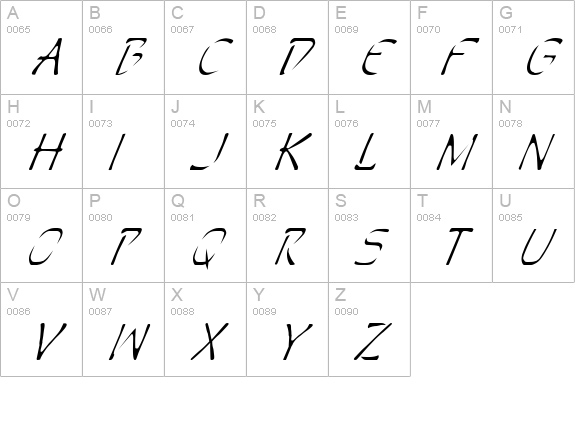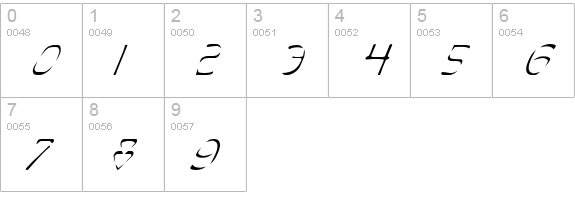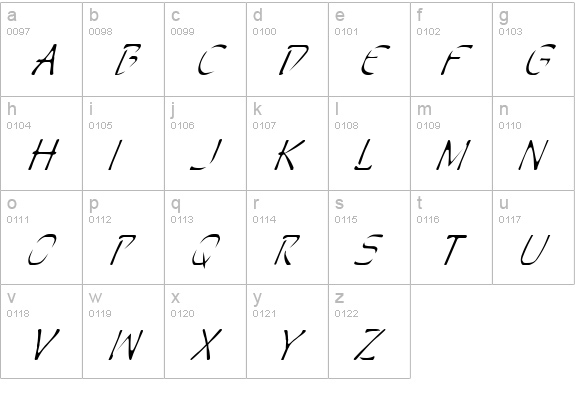
Perdition Italic is a distinctive, italic variant in the Perdition typeface family \xE2\x80\x94 well suited to design and typography projects.
Perdition Italic font embodies a captivating blend of elegance and edginess, making it the perfect choice for those seeking to add a touch of sophistication to their designs. With its sleek and slanted letterforms, this font exudes a sense of intrigue and allure, drawing the viewer's attention with its unique style. The distinctively crafted characters of Perdition Italic font strike a harmonious balance between boldness and grace, making it an ideal choice for a wide range of design projects. Whether you're looking to create eye-catching logos, stylish headlines, or captivating body text, this font is sure to leave a lasting impression. What sets Perdition Italic font apart is not only its exceptional design, but also its accessibility. As a font that is freely available to download at FontsMarket.com, it offers designers and creatives the opportunity to enhance their projects without any financial constraints. This means that you can unleash your creativity and fully embrace the possibilities that Perdition Italic font has to offer, without worrying about breaking the bank. With its versatility and accessibility, Perdition Italic font is a valuable addition to any designer's toolkit. Whether you're working on a personal project or a professional endeavor, this font is sure to elevate your designs and bring them to the next level. So why wait? Download Perdition Italic font today from FontsMarket.com and let your creativity soar.